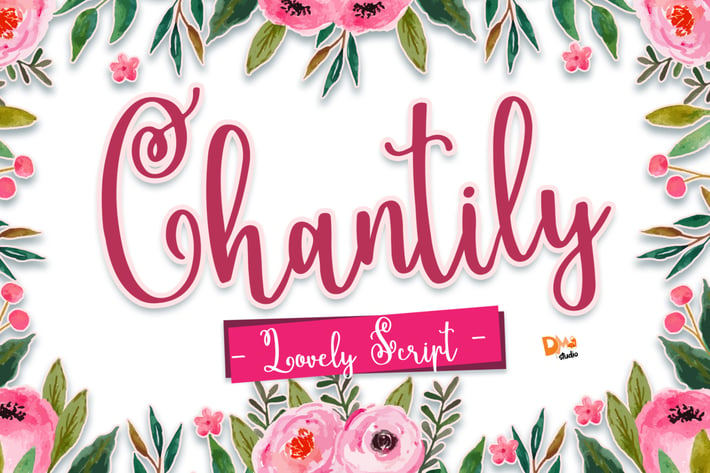
Chantily - Lovely Script Font
Introducing Chantily - Lovely Script Font
Chantily is a cute, casual girly handwritten with unique uppercase, great for your lovely moment, for you who love making diy crafts,for wedding invitation, or another romantic and sweet projects.